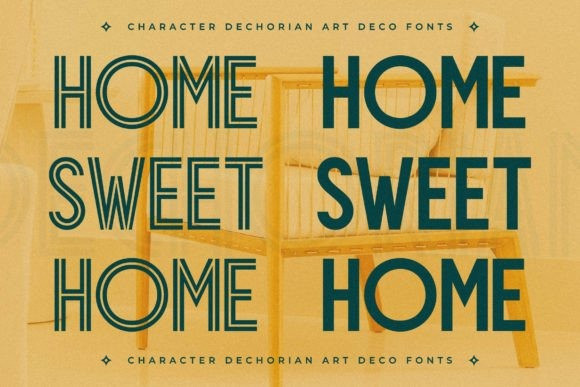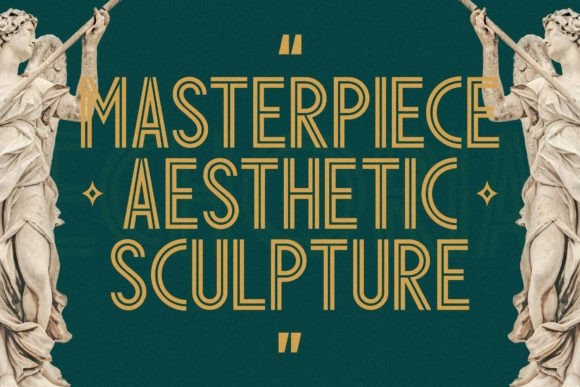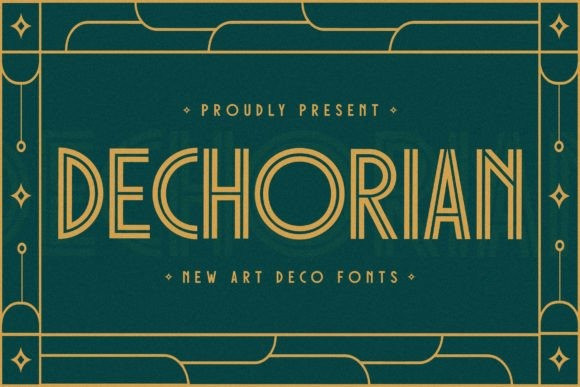
Dechorian Font
Dechorian Font, created by Storytype, a display modern and classic typeface that has own unique style & modern look. This typeface is perfect for an elegant & luxury logo, book or movie title design, fashion brand, magazine, clothes, lettering, quotes, and so much more.